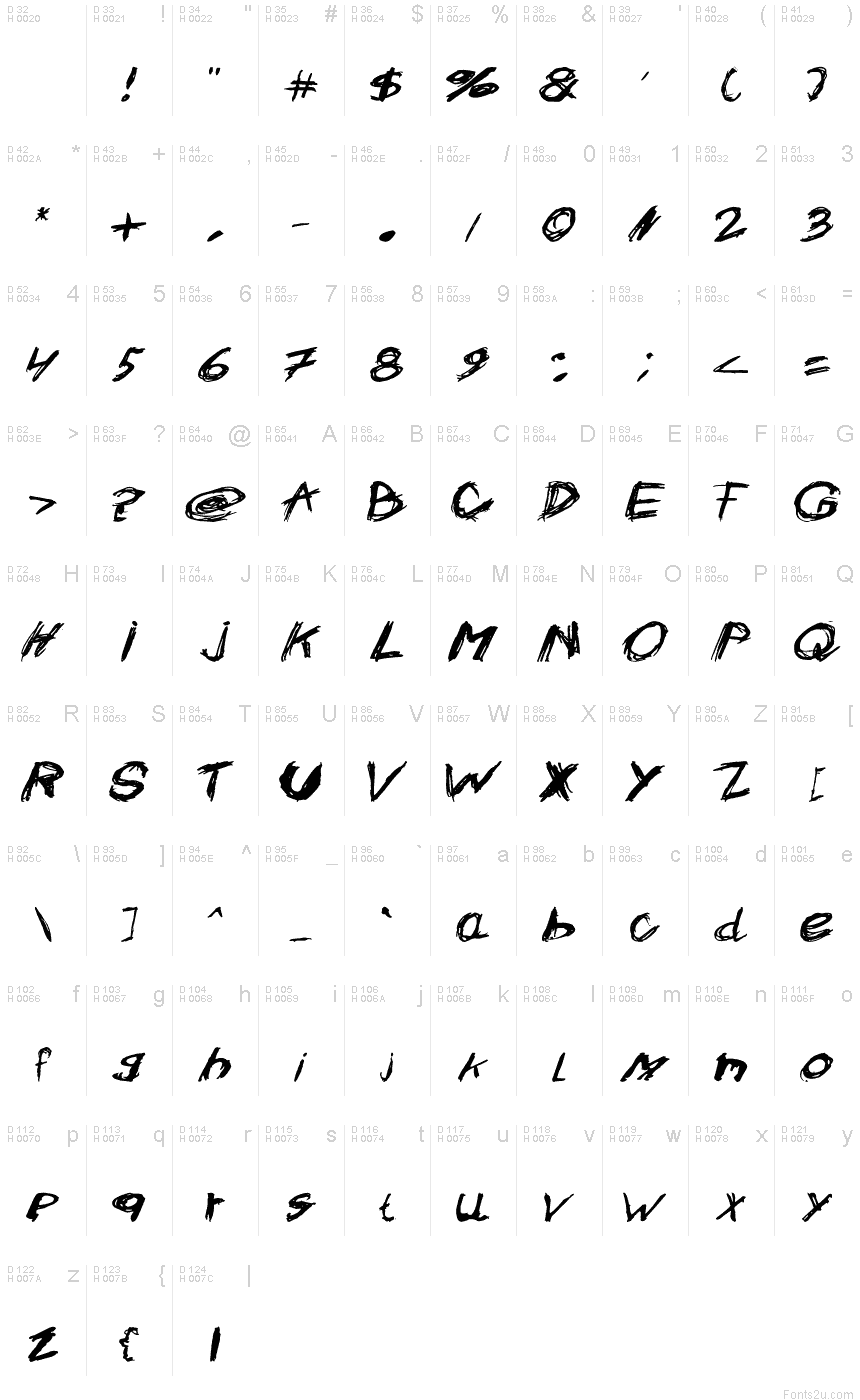
Crazysk8
Crazysk8 font is a free trash typeface that looks like it’s been slashed onto concrete with a loaded marker. Thick black strokes twist and splatter, with wild, uneven forms that feel straight out of a skate deck graphic or a grimy alley wall. The letters lurch forward with a fast, reckless rhythm, so even a single word hits like a tag caught mid-motion.
This free font shines on skate zines, streetwear branding, gig posters, underground event flyers, album covers, and bold YouTube or Twitch graphics. Using Crazysk8 in big sizes lets the rough edges and inky gaps really show, while pairing it with a clean, narrow sans-serif for smaller text keeps everything readable but still raw.